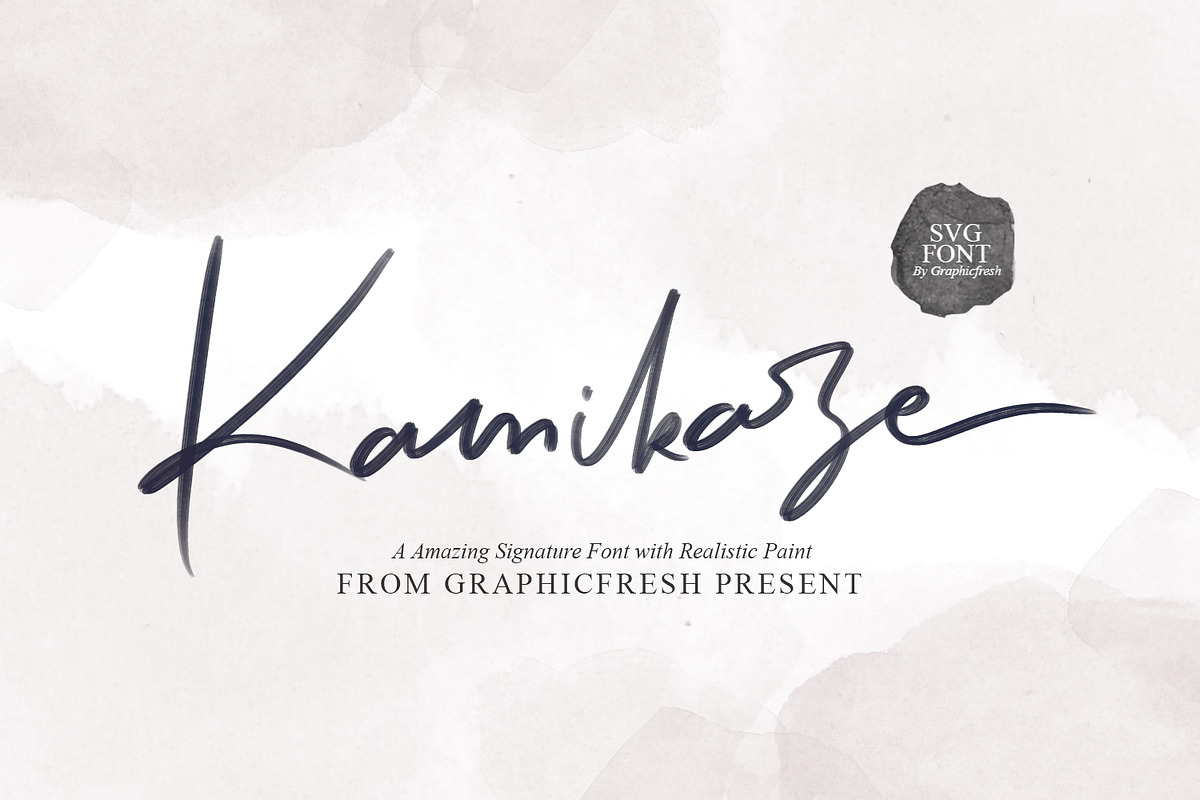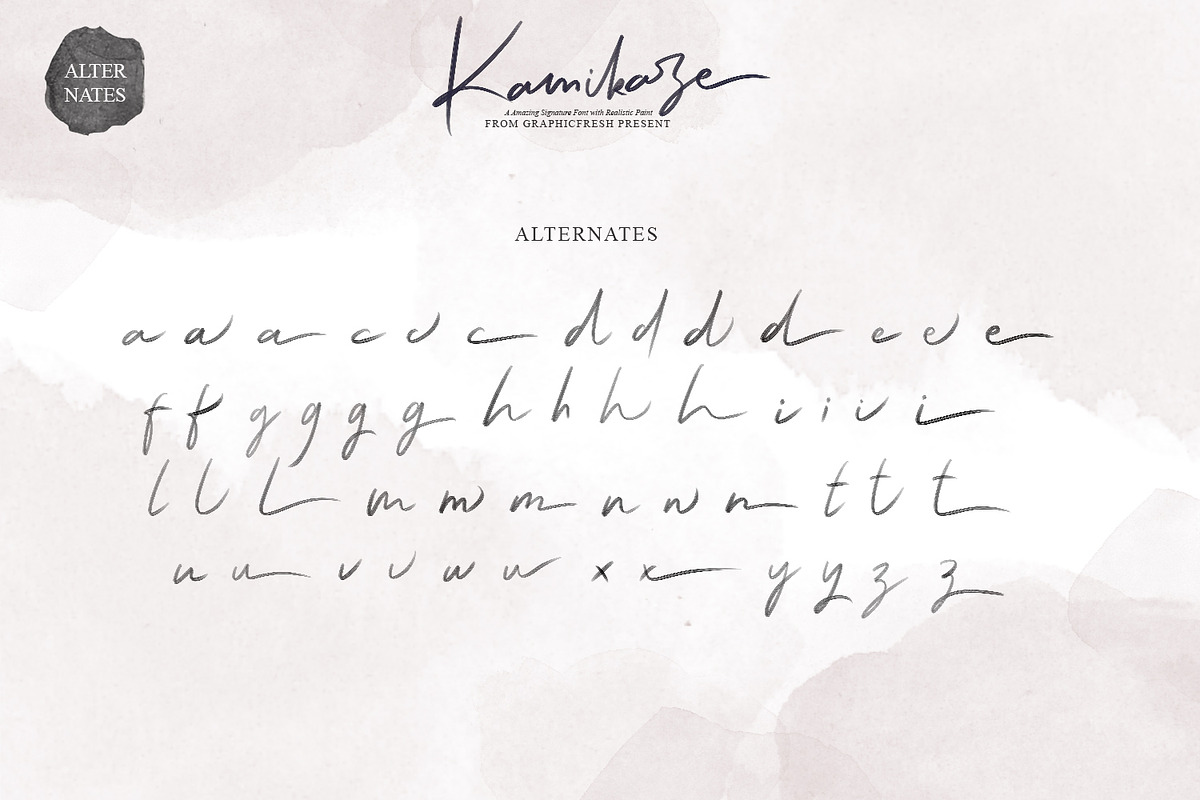
Kamikaze SVG Font
Kamikaze SVG Font | Amazing Signature Font
With a soft touch, we present a font that is perfect for a signature. A real signature is now present in your design world. Get a signature made of stunning paint texture. Now you don't have to worry anymore, because a real writing is present.
- Kamikaze Opentype SVG Font: This is the main font file containing all the oil realistic effects.
- Kamikaze Vector Font: Use this version if you need the font in a traditional vector format.
- 76 Unique Ligatures
- More Alternates